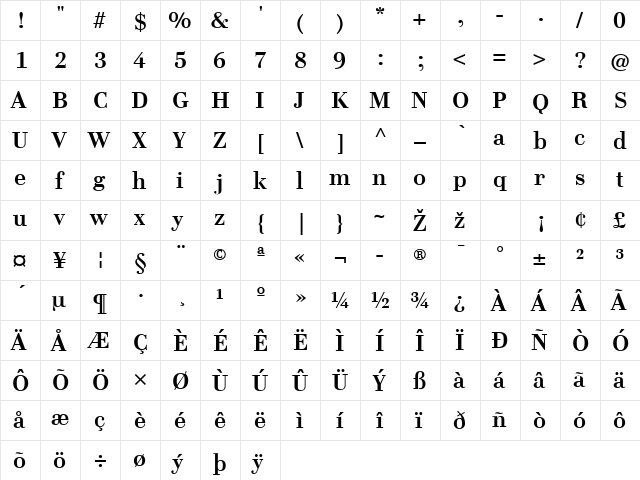
CelliniTF-Bold Regular
| Foundry | Albert Boton, published by FontShop International for the FontFont Library |
| Designer | Albert Boton |
Design Context for CelliniTF-Bold Typeface
CelliniTF-Bold offers clean, dependable letterforms without strong stylistic allegiance, making it a practical choice for designers who need flexibility. Its bold stroke weight gives it real presence on the page.